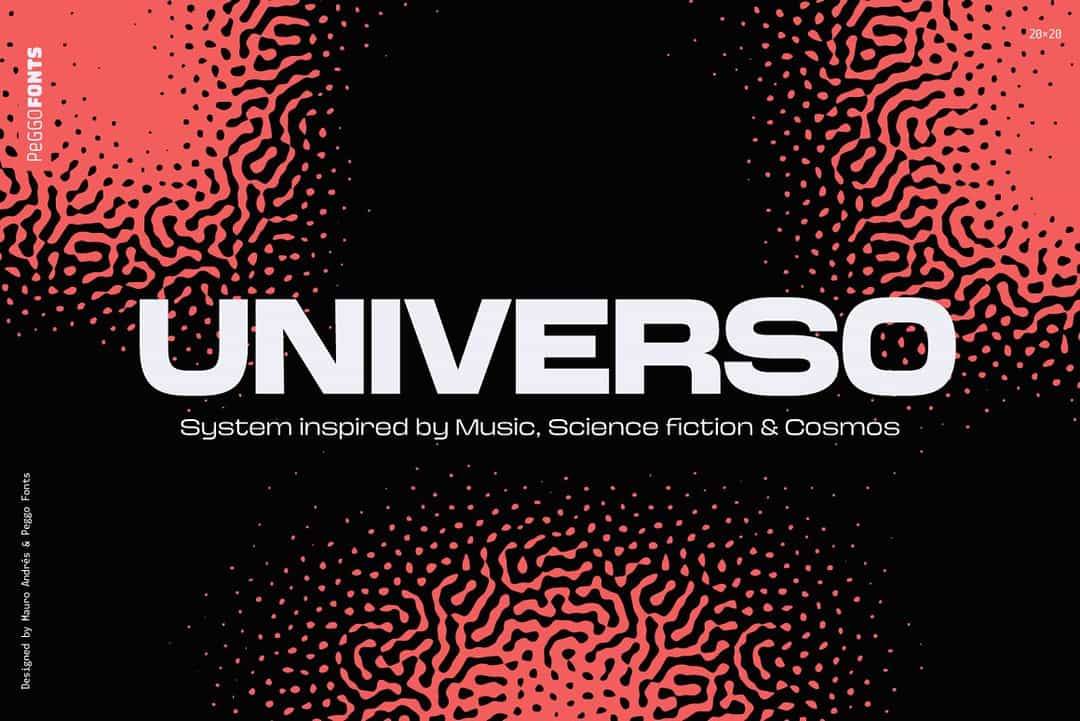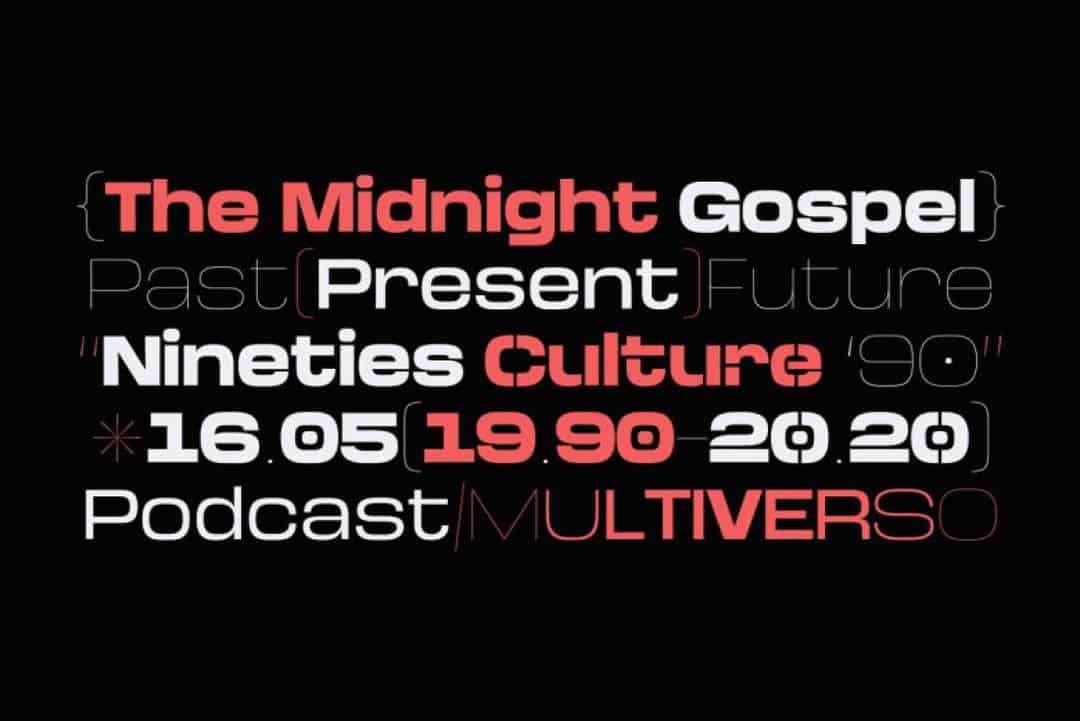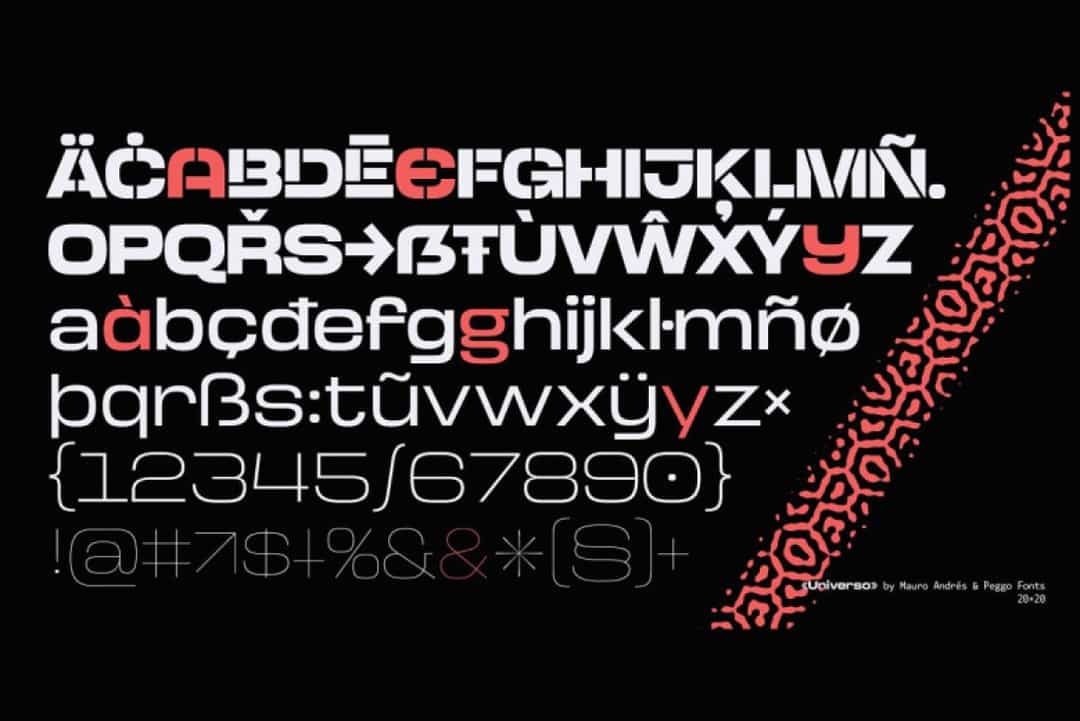
Universo as well as Universo Stencil created by Mauro Andres, and Peggo Fonts are a font family for display specifically designed for “Caos Sagrado” specially designed for magazines and fanzine that are informative. The name “Universo” is derived from the phrase “we must talk about the awful things that happen in the Universe” and has the principal concept of helping and supporting in exposing social issues.